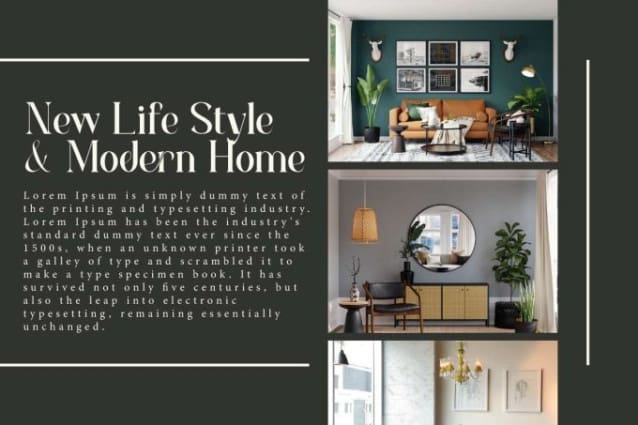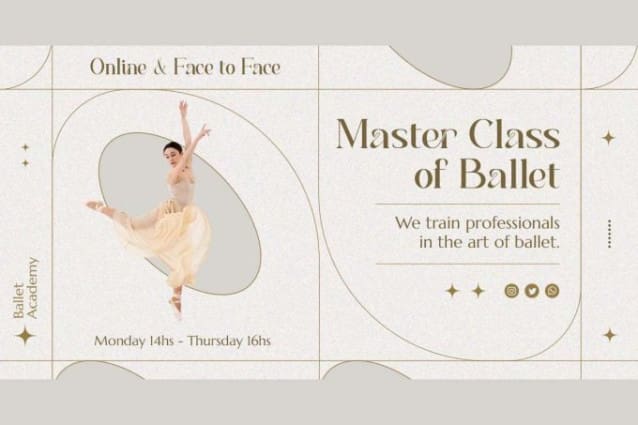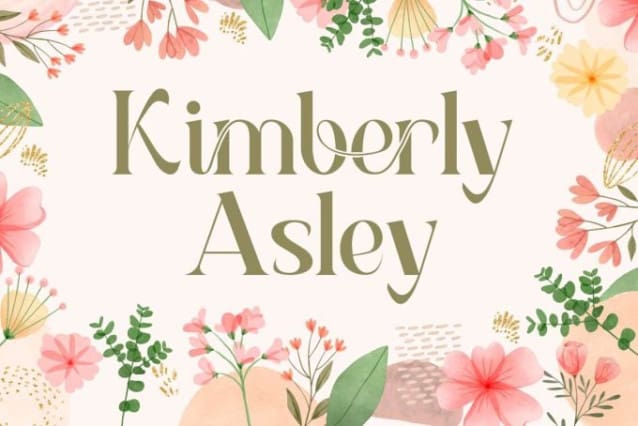
Kimberly Asley Font
Kimberly Asley Font is a stylish display font, created by VinType Studio. This font has an elegant appearance with lines that are not too thick so it gives a fancy impression. It will be suitable for many industries, such as advertisement, art, beauty product, café, event or festival, fashion, handicraft, homeware, perfume, restaurant, etc.
Kimberly Asley Font includes full set of Uppercase and Lowercase Basic Characters, also Numerals and Punctuation, and Ligature. This font would be perfect for those of you who need a sleek look, such as brochure, business card, custom design, gift box, invitation, label, magazine cover, poster, product packaging, quote, screen printing, signage, stationery, website, and more!